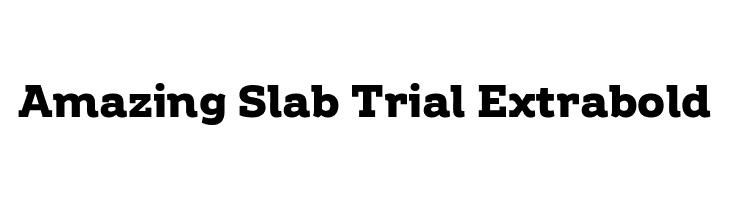
A bold slab serif font with strong, block-like serifs and consistent stroke width.
A bold slab serif font with strong, block-like serifs and a modern yet classic style.
A bold slab serif font with strong, block-like serifs for impactful text.